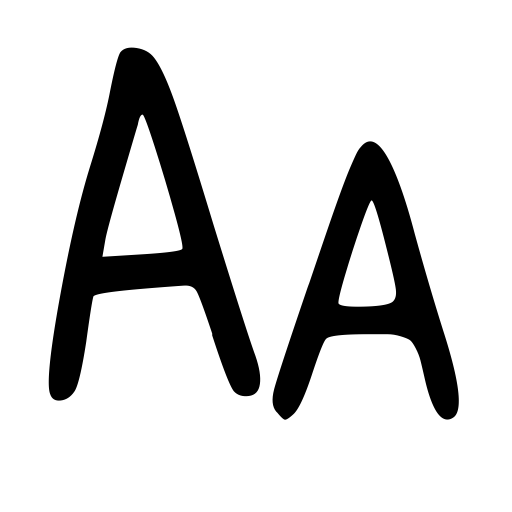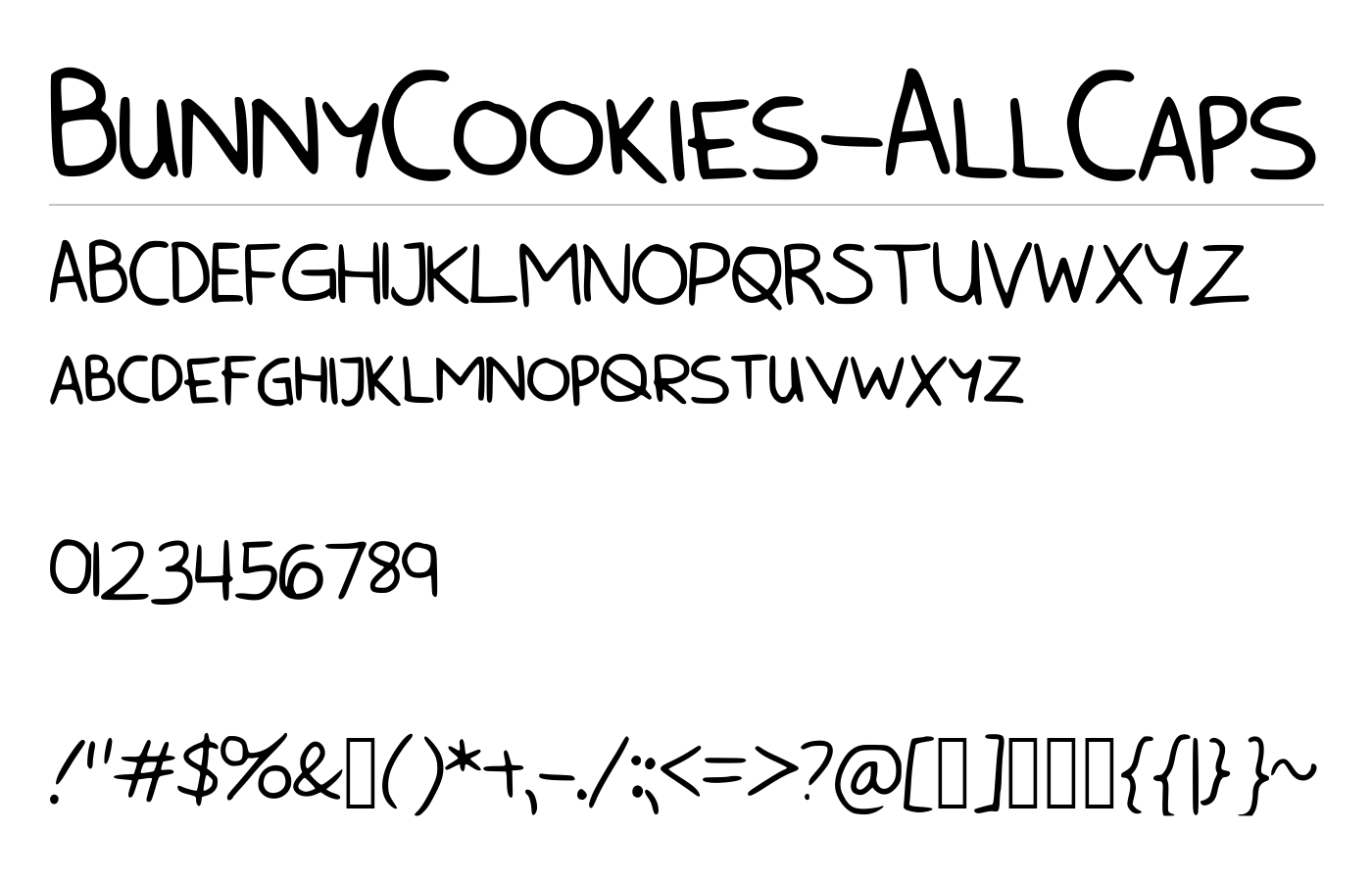
BunnyCookies-AllCaps is a playful, casual sans serif font with a hand-drawn feel, featuring uneven strokes and slightly irregular shapes that give it a friendly, approachable character. Its light weight and narrow proportions make it ideal for informal projects, adding a personal, charming touch without overwhelming the design. This font works great for children's books, greeting cards, logos, and any creative work that calls for a fun and whimsical vibe.
BunnyCookies-AllCaps Font
About BunnyCookies-AllCaps Font